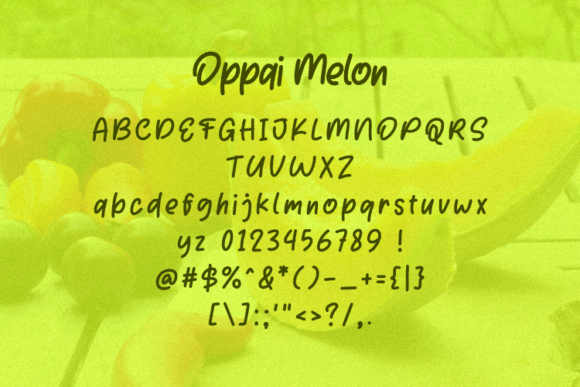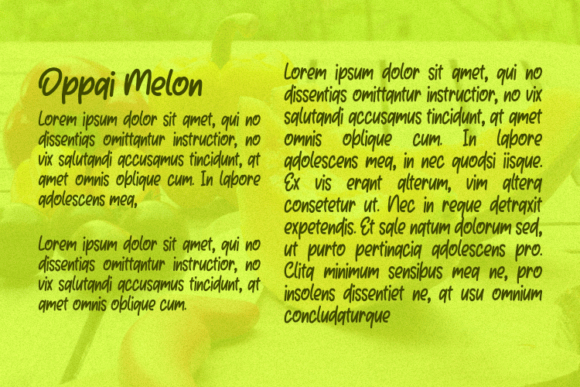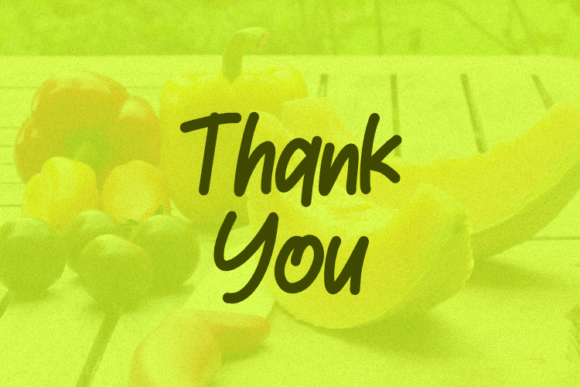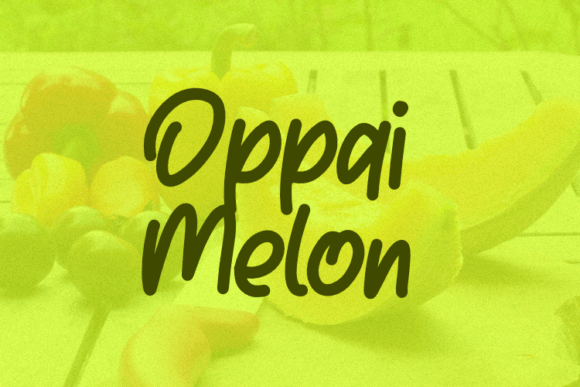
Introduction to Oppai Melon Font
- High-quality, unique design perfect for creative projects and personal use.
- Features a playful and eye-catching design, suitable for various design applications.
- Includes a range of characters, including uppercase and lowercase letters, numbers, and special characters.
Honest Review: Oppai Melon Font
I recently stumbled upon the Oppai Melon Font, and I’m excited to share my thoughts on this design resource. As a designer, I appreciate high-quality fonts that can elevate a creative project. The Oppai Melon Font definitely delivers.
- ✨ The font’s playful, cursive style makes it perfect for whimsical or romantic designs.
- ⚠️ The font may not be suitable for formal or professional designs due to its playful nature.
- ⚠️ Some characters may not be as smooth or consistent in terms of spacing.
Overall, I’m impressed with the Oppai Melon Font. It’s a great addition to any designer’s toolkit, especially for creative projects that require a touch of whimsy. While it may have some limitations, I think it’s definitely worth checking out.
The Oppai Melon Font is a versatile font that can be used in a variety of creative projects, including logos, posters, and social media graphics. Its high quality and transparent background make it an ideal choice for designs that require a touch of elegance and sophistication.